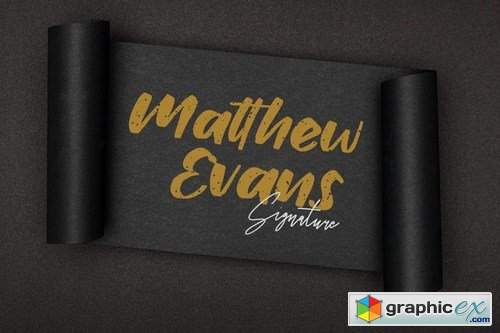
Bulkies - Handwritten Font
Bulkies font is handwritten script font. It has casual, classy, and Cool. It’s a great font for fashion, apparel projects, signature, album cover, logo, branding, magazine, social media, & advertisements, but also works great for other projects.